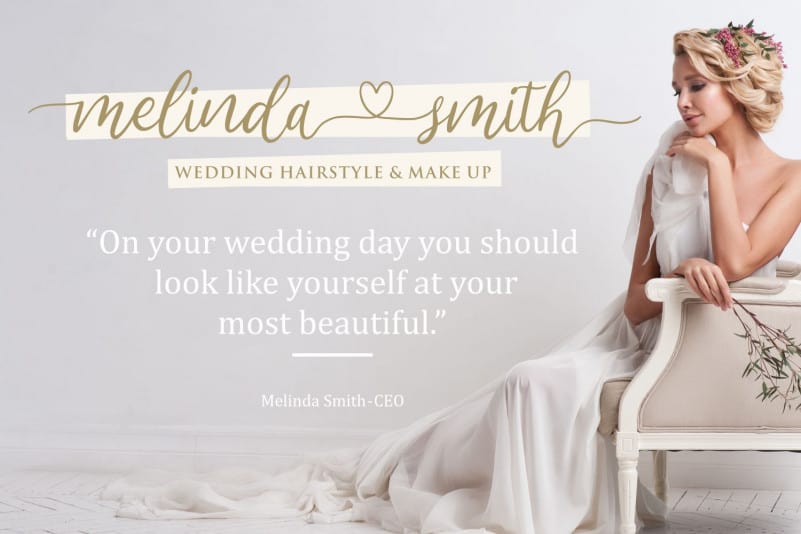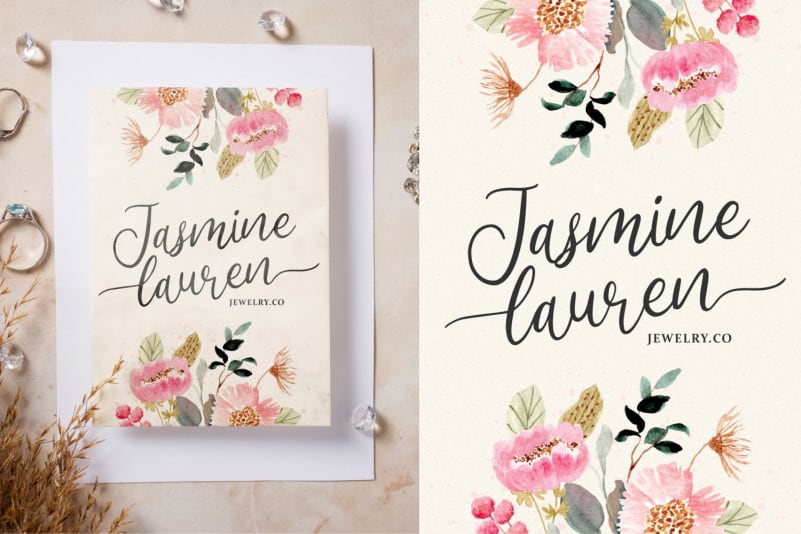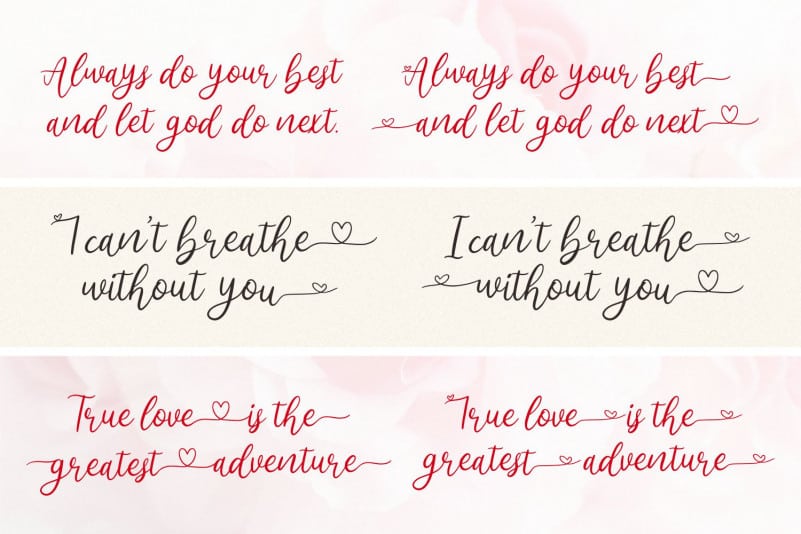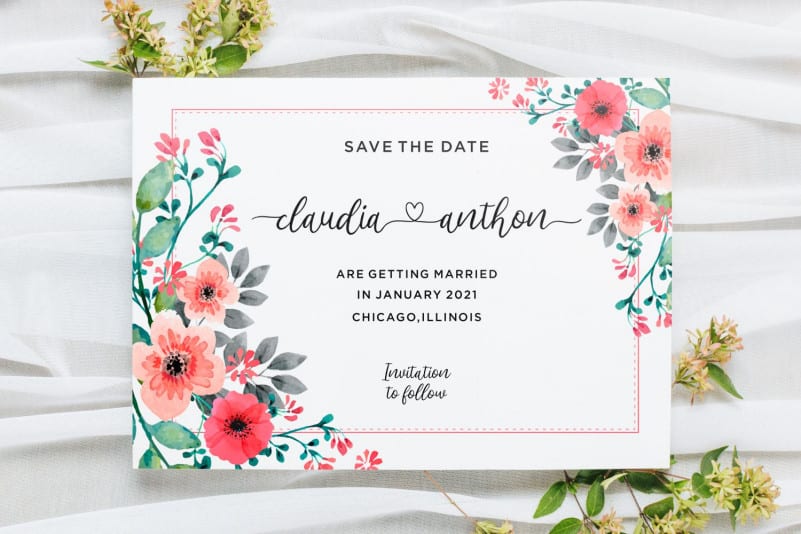
Bluehonest Script Font
Bluehonest Script Font is a sweet and delicate handwritten font. Dainty and joyful, this font will be ideal for writing wedding invitations, cards or any other design that may need a romantic, personalized touch!